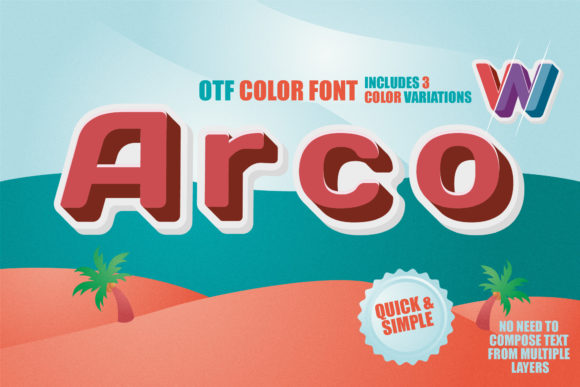
The Ultimate Design Hack: Unlocking the Power of Arco Font
I’ll never forget the time I was working on a project for a client who needed a bold, eye-catching font to make their brand stand out. I scoured the internet for hours, trying to find the perfect one, but nothing seemed quite right. That was until I stumbled upon Arco Font – a game-changing, cool, and robotic-looking color font that instantly elevated my design. In this article, I’ll share my experience with Arco Font, its features, and how to get the most out of it.
Arco Font: A Comprehensive Review
What I Love About Arco Font
- ✨ Bold and eye-catching: Arco Font is perfect for making a statement with your designs. Its bold and robotic look is sure to grab attention.
- ✅ Versatile: Whether you’re working on a logo, brochure, or social media graphics, Arco Font can adapt to any topic or theme.
- 🎨 Color font capabilities: As an Opentype-SVG font, Arco Font offers stunning color possibilities, making it ideal for designs that require a pop of color.
While Arco Font is an amazing addition to any design library, there are a few things to keep in mind:
- ⚠️ Steep learning curve: If you’re new to color fonts or OpenType features, it may take some time to get familiar with Arco Font’s capabilities.
The Story Behind Arco Font
Arco Font was designed with the goal of creating a bold, attention-grabbing font that could be used across various design disciplines. Inspired by robotics and futuristic themes, the font’s creators aimed to produce a typeface that would add a touch of innovation and excitement to any design project.
| Is Arco Font suitable for body text? | While Arco Font is a stunning display font, it may not be the best choice for body text due to its bold and attention-grabbing nature. Consider using a complementary font for body text. |